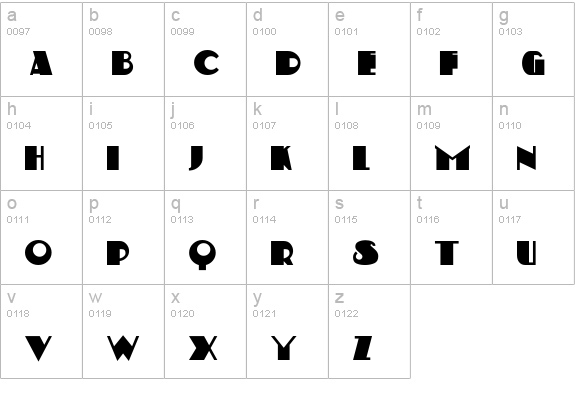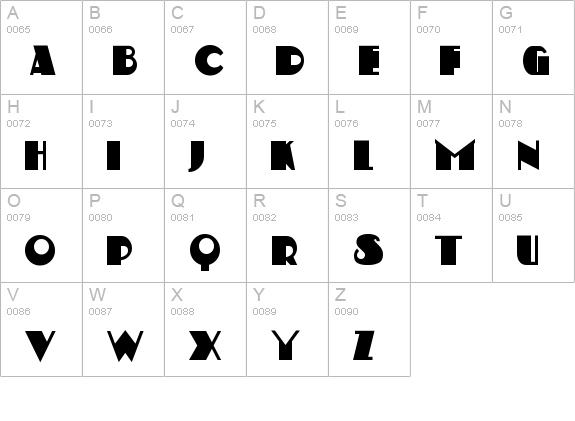
Introducing Kerfuffle font, the epitome of creativity and quirkiness! This delightful typeface is sure to add a touch of playfulness to any design project. With its unique and whimsical letterforms, Kerfuffle font is perfect for adding a fun and lighthearted vibe to invitations, greeting cards, posters, and more. What's even better is that Kerfuffle font is free! Yes, you heard that right. This incredible font is freely available to download at FontsMarket.com. Now, you can enjoy the endless possibilities of Kerfuffle font without spending a dime. Whether you're a professional designer or a DIY enthusiast, this font is a must-have in your collection. Each character in Kerfuffle font is carefully crafted with attention to detail, ensuring a seamless and visually appealing result. The playful curves and unconventional shapes make every word stand out, creating a captivating visual experience for your audience. But Kerfuffle font is not just about its aesthetic appeal. It also offers versatility and ease of use. This font is compatible with various design software, making it accessible to designers of all levels. Whether you're working on a personal project or a client's request, Kerfuffle font will be your go-to choice for adding that extra touch of whimsy. So, what are you waiting for? Don't miss out on the opportunity to download Kerfuffle font for free at FontsMarket.com. Let your imagination run wild and explore the endless possibilities that this font offers. Get ready to create designs that are sure to make a kerfuffle in the best way possible!